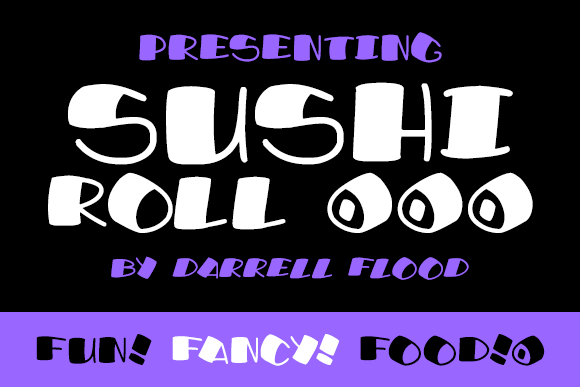
Sushi Roll Font
Prepare your taste buds for the most delicious and eye-catching font that will tantalize your designs and ignite your creativity. Introducing Sushi Roll Font, a culinary masterpiece that will transform your words into a delectable feast for the eyes.
Dive into the world of Japanese aesthetics with this playful and charming font, perfect for adding a touch of whimsy and sophistication to any project. Sushi Roll's delightful curves and adorable shapes mimic the iconic Japanese delicacy, evoking a sense of culinary delight and cultural charm.
With Sushi Roll Font, your designs will become a delectable treat, leaving your audience craving for more. Its versatility makes it the perfect choice for menus, invitations, packaging, branding, and any other project that calls for a dash of Asian-inspired flair.
Indulge in the joy of Sushi Roll Font and let your imagination run wild with endless creative possibilities. Each letter is a work of art, lovingly crafted to convey warmth, playfulness, and a hint of mischievous delight.